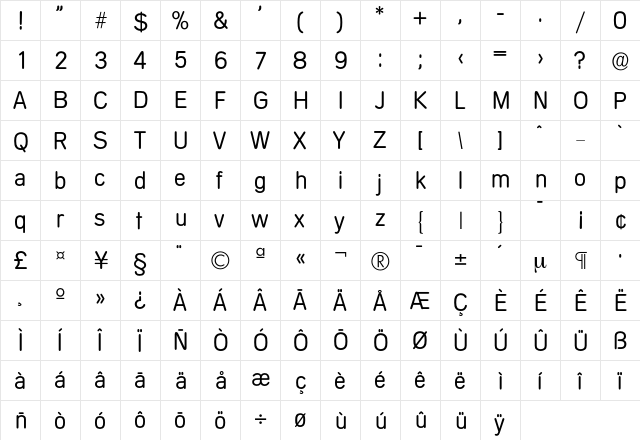
Mercedes-Light Regular
Design Context for Mercedes-Light Typeface
Mercedes-Light is a composed and adaptable typeface that performs quietly and consistently across a wide range of design contexts. Its slender proportions lend an understated elegance to any composition.